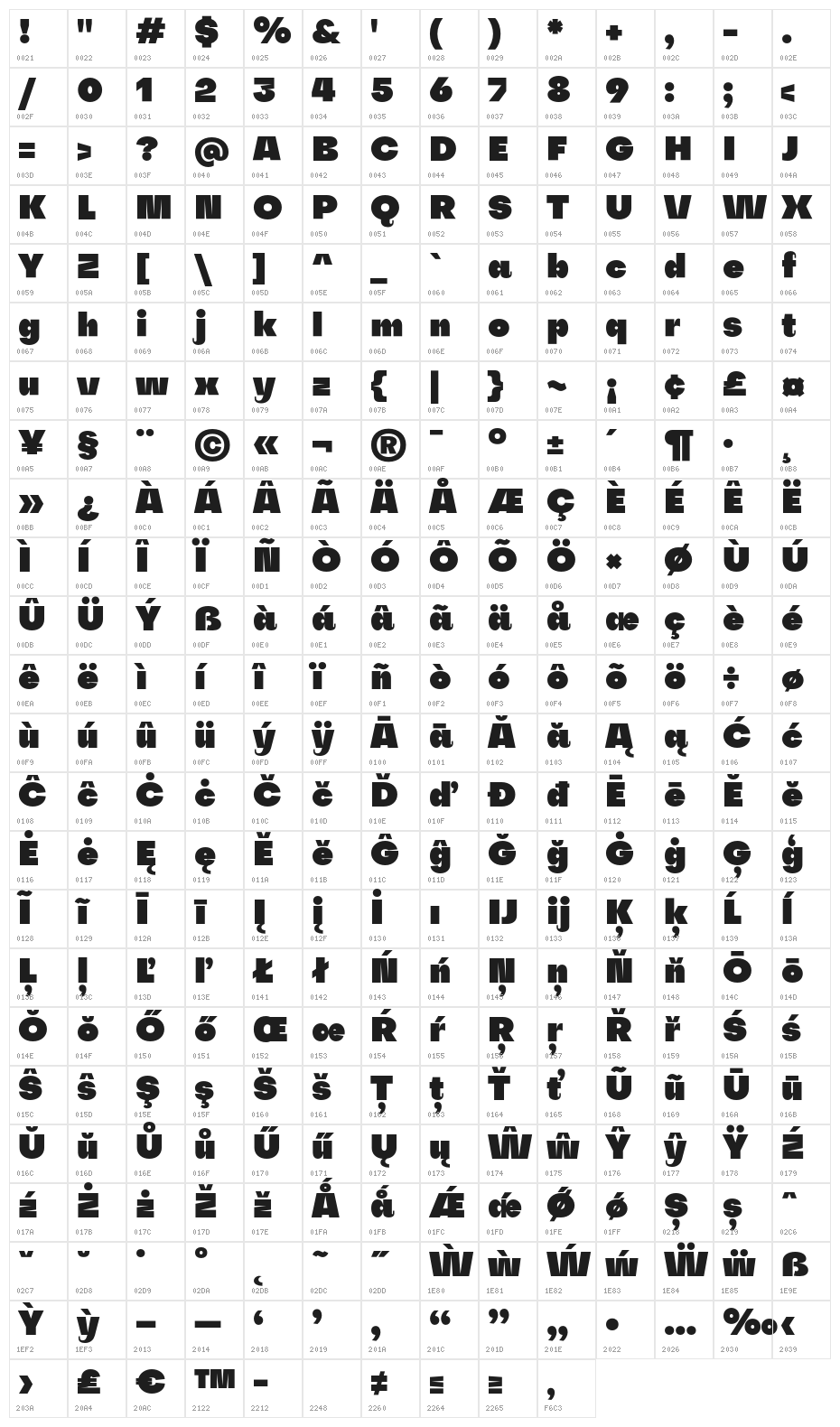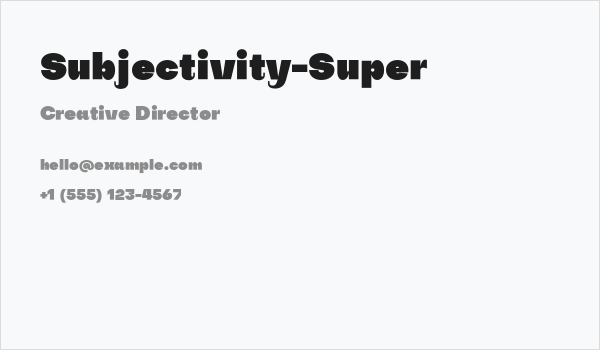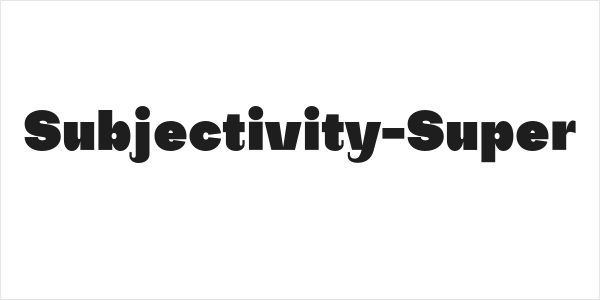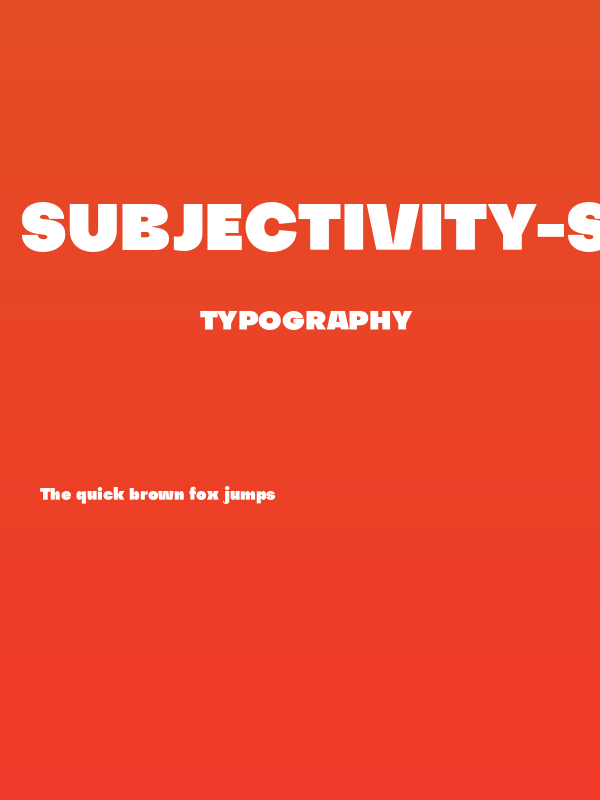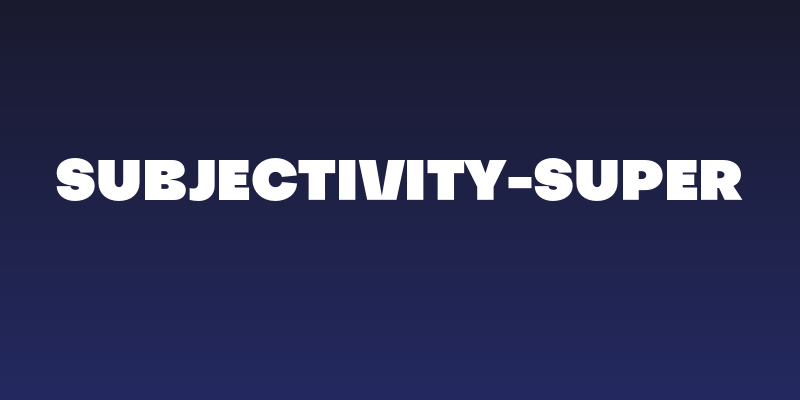
Subjectivity-Super Font
Subjectivity-Super Description
This bold and impactful font features thick, uniform strokes that create a strong visual presence. The characters are designed with a geometric precision, offering a modern and assertive look. The uppercase letters are particularly striking, with a solid and confident appearance. The lowercase letters maintain the boldness while providing a slightly softer edge. Numbers and special characters are equally robust, ensuring consistency across all text elements. This font is ideal for making a statement, with its high contrast and wide character spacing enhancing readability and emphasis.
| Proposed Projects | Ideal for headlines, posters, branding, and any project requiring a bold statement. |